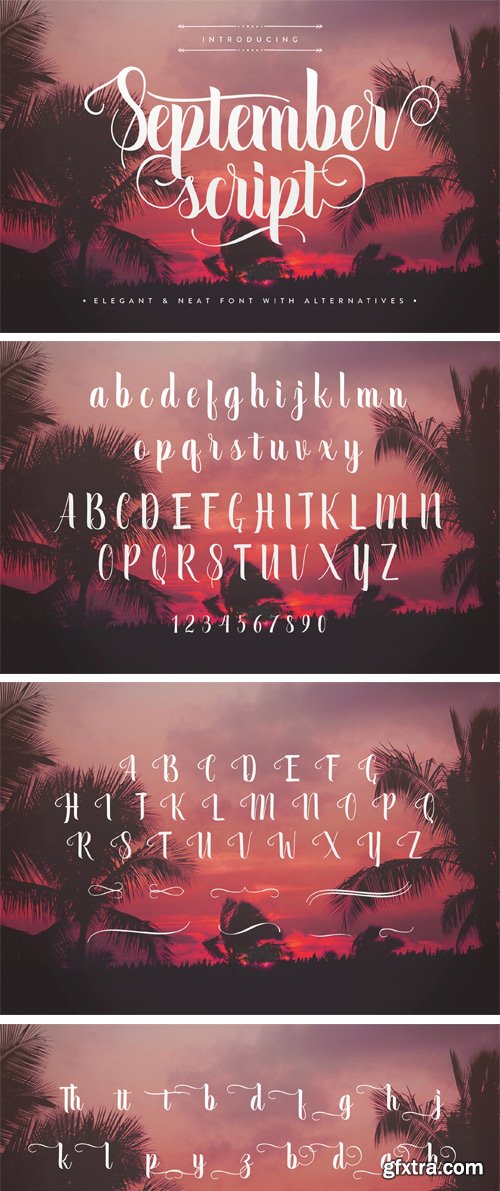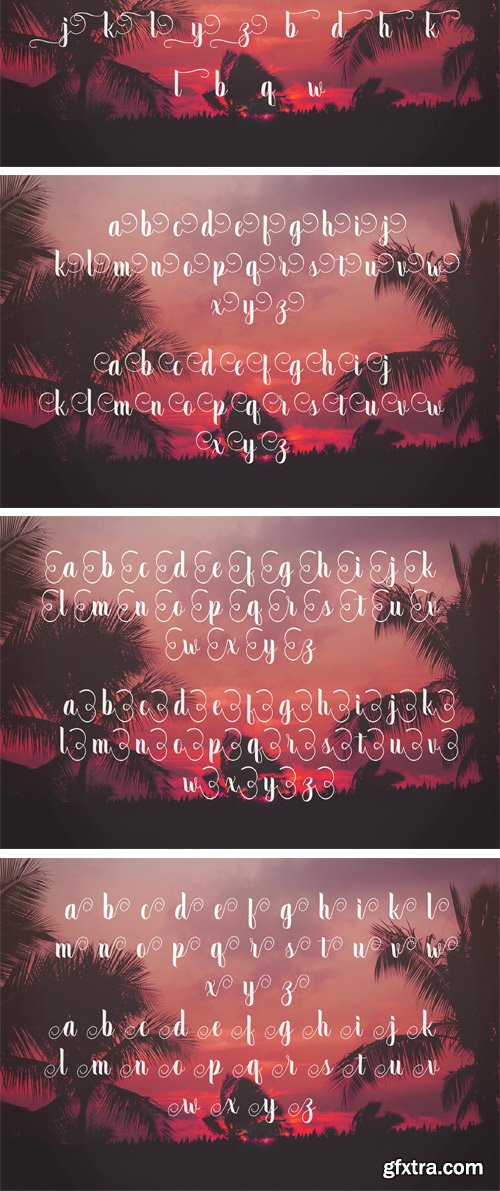
Fontbundles - September Script Font
Watch the Sunset with September Script. A fantastic Script font which oozes elegance and style. PUA encoded and with lots of alternates, swirls and swashes September Script is a must have font for any typography enthusiast. Exclusive to FontBundles.net September Script is a fantastic addition to any collection.